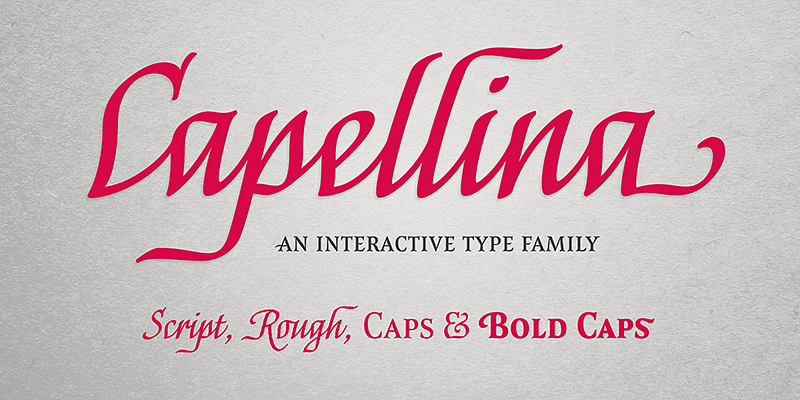
Capellina Font Free Download is an elegant and romantic script typeface that exudes charm and sophistication. With its flowing curves, delicate ligatures, and handwritten grace, Capellina is perfect for wedding invitations, branding for beauty and fashion, greeting cards, and any design that needs a soft, feminine touch.
Crafted with attention to detail, Capellina brings a high-end look while remaining legible and versatile. It includes a full set of upper and lowercase letters, punctuation, stylistic alternates, and multilingual support—making it a great choice for international design work and creative branding.
If you're searching for a font that conveys elegance, warmth, and personality, Capellina Font Free Download is a lovely option to explore. Use it freely in your personal or test projects to see how it elevates your designs. For any commercial applications, be sure to purchase the appropriate license. Add a graceful, handwritten flair to your collection with this stylish and expressive typeface.